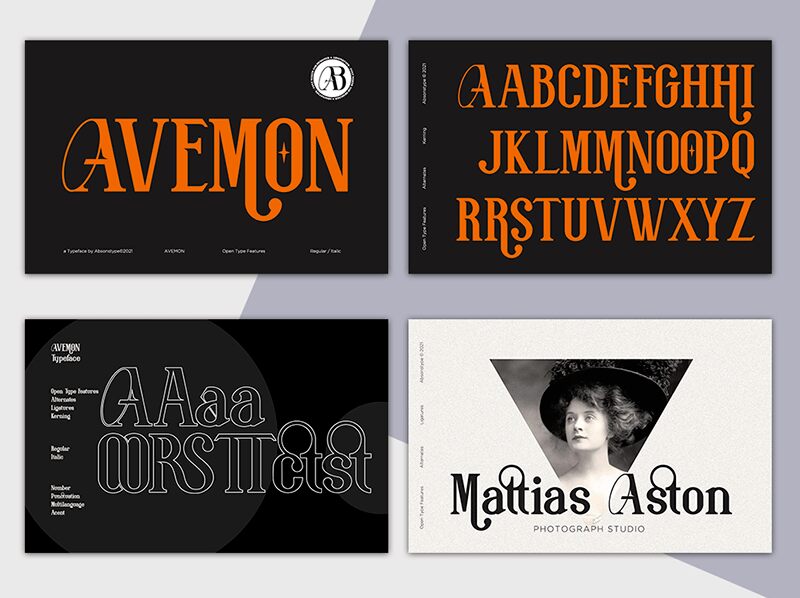
Avemon font by Absonstype Studio is a traditional, formal serif font with a classic appeal. The authoritative typeface features historical influences in the forms of its condensed characters with the thinstroke that ends in slightly higher contrast to the other strokes.
Masterfully designed with versatile usage in mind, this free display font works for poster designs, magazines, t-shirts and apparel items labelling or branding, album art cover designs and typography projects. Use Avemon for book covers for private use or commercial intent.